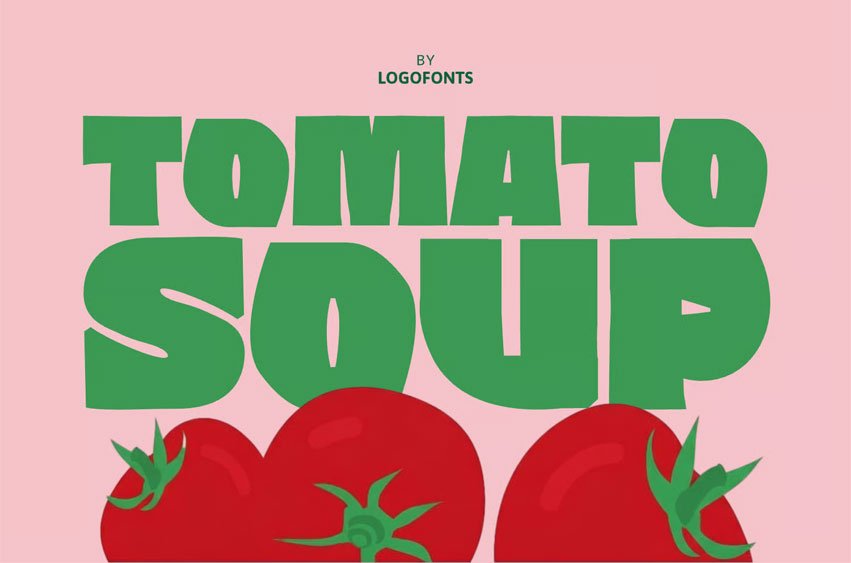
Tomato Soup Font captures the nostalgic joy of homemade meals and comforting flavors. Its chunky and slightly irregular forms make it a perfect fit for food packaging, bakery, and restaurant branding that aims to feel fun and approachable. Whether for coffee shops, burger joints, or pizza menus, this font adds a playful yet bold personality.
Evoking the warmth of a kitchen and the aroma of fresh ingredients, TOMATO SOUP is ideal for brand identity projects in the cooking, candy, or chocolate world. It’s bold, modern, and irresistibly tasty—just like your favorite comfort food.